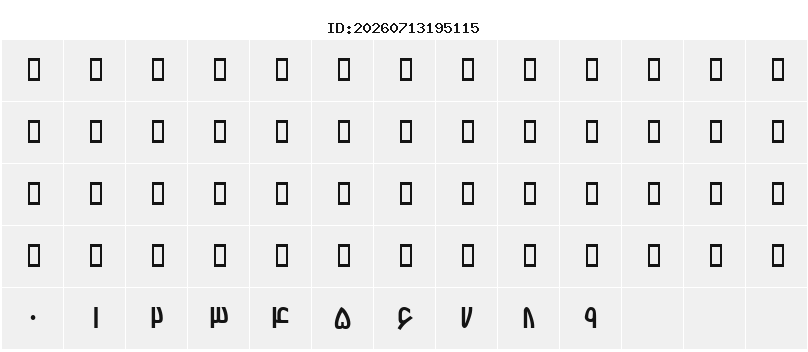
• Font Name: B Bardiya
• Font ID: Borna Bardiya Bold
• Full Font Name: B Bardiya Bold
• Version: Version 2.01 - Build 1379
• PostScript Name: BBardiyaBold
• Character Count: 288
About B Bardiya.ttf
B Bardiya.ttf is a modern, elegant sans-serif font designed for ultimate readability and visual harmony. Perfect for branding, headlines, web design, and print materials.